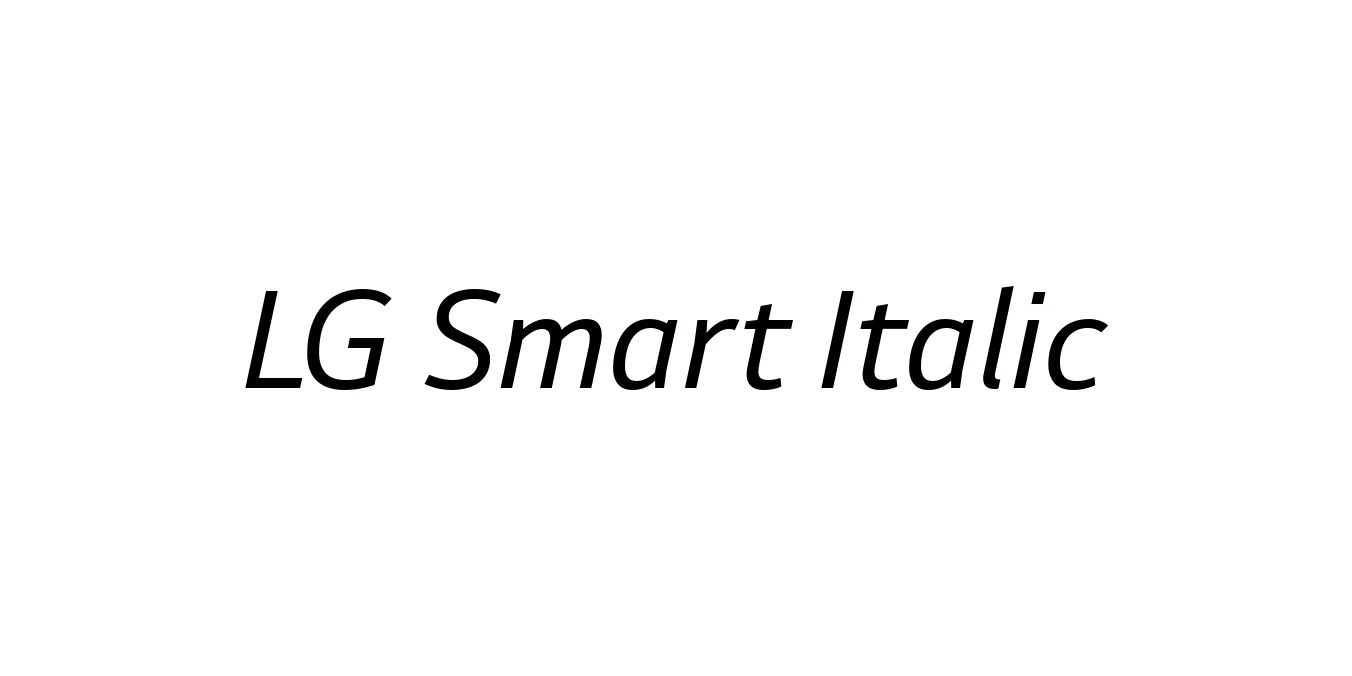
LG Smart Italic
Designed by LG Electronics Design Team
LG Smart Italic is a proprietary corporate typeface specifically engineered for LG Electronics to convey a sense of modern innovation and global accessibility. It was developed to serve as a cornerstone of the brand's visual identity, providing a sleek, high-tech aesthetic that aligns with the company's 'Life's Good' philosophy. The italic variant adds a sense of speed, dynamism, and ergonomic flow, ensuring that text appears active and engaging while maintaining the high legibility characteristic of the LG Smart family.
The typeface features a contemporary sans-serif structure with carefully balanced proportions, optimized for clear rendering on both high-resolution digital displays and traditional print media. As a versatile font, LG Smart Italic is utilized across a vast range of products, from smartphone interfaces and smart TV menus to home appliance branding and global marketing campaigns. Its clean, geometric lines combined with a slight slant provide a sophisticated look that bridges the gap between human-centric design and technological precision.
LG Smart Italic Best Uses
Optimized for mobile apps, smart TV interfaces, and digital dashboards.
Perfect for technology-focused logos, taglines, and brand communications.
Excellent for dynamic headlines and promotional materials requiring a high-tech feel.
Suitable for clean, modern website headers and tech-related blog content.